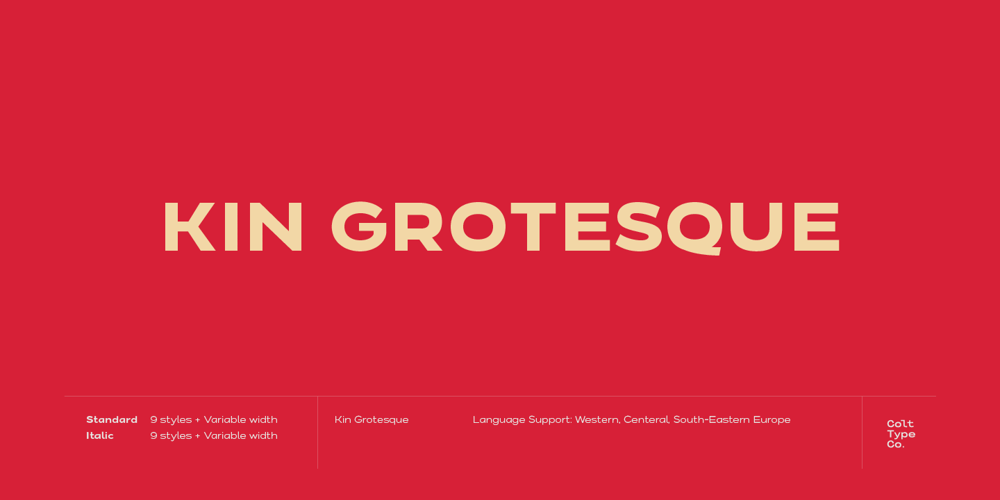
Kin Grotesque Font Family was designed by Adam Greasley and published by wearecolt. Kin Grotesque contains 20 styles and family package options. Introducing Kin Grotesque has been created to be your new go-to grotesque font that will work well for copy text and headline titles. With carefully crafted letterforms, ligatures and stylistic alternatives, Kin Grotesque is perfect for brand identity and logo design.With nine standard weights in standard and italic families.Features: 9 separate font weights + variable weight font for compatible software Standard and Italic Upper and lowercase Numerals Trial versions are available from www.wearecolt.com